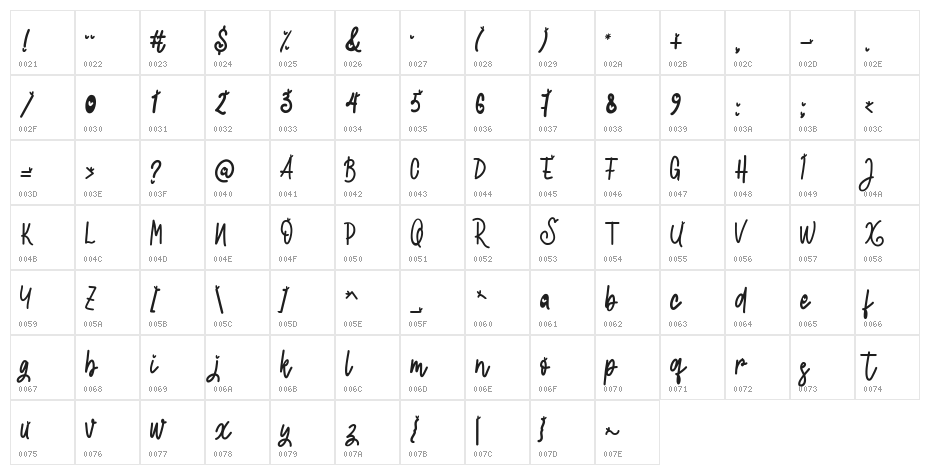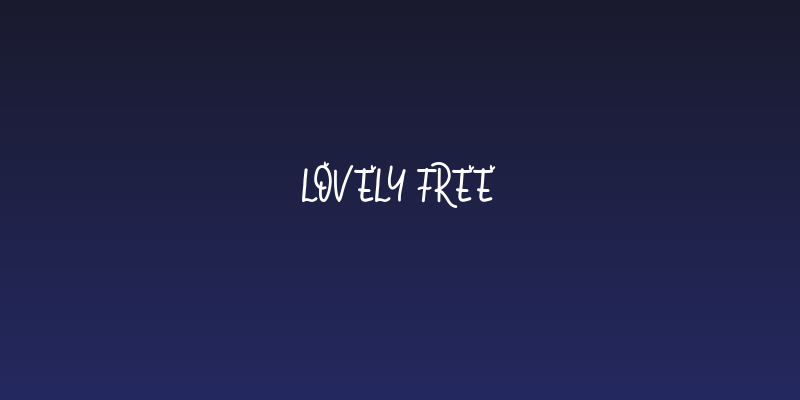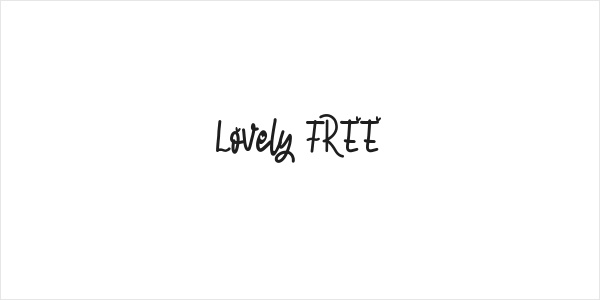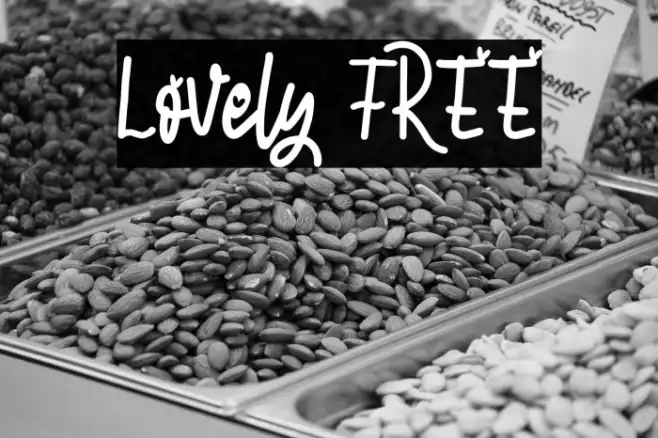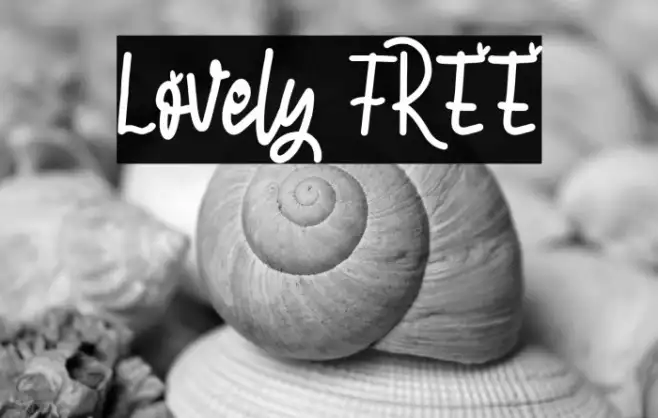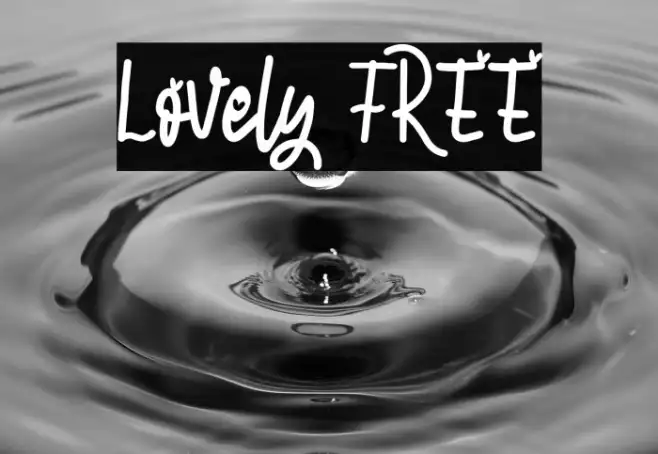
Lovely FREE Font
Lovely FREE Description
This font features a playful and whimsical handwritten style, characterized by its fluid and flowing letterforms. The uppercase letters are bold and slightly irregular, giving a sense of spontaneity and charm. The lowercase letters maintain a consistent style, with some letters featuring loops and curls that add to the overall playful aesthetic. The numbers are clear and easy to read, while the special characters are designed to match the font's lively personality. This font exudes a sense of fun and creativity, making it ideal for projects that require a personal touch.
| Proposed Projects | Ideal for greeting cards, invitations, children's books, and creative branding projects. |